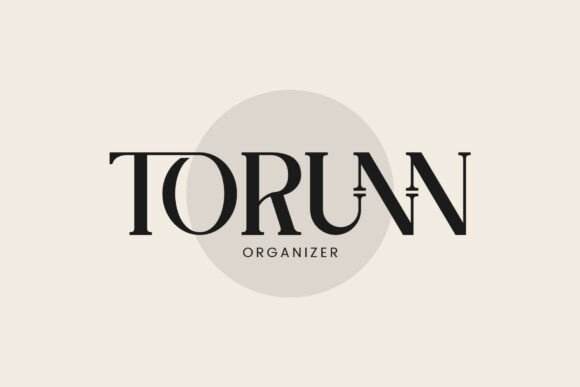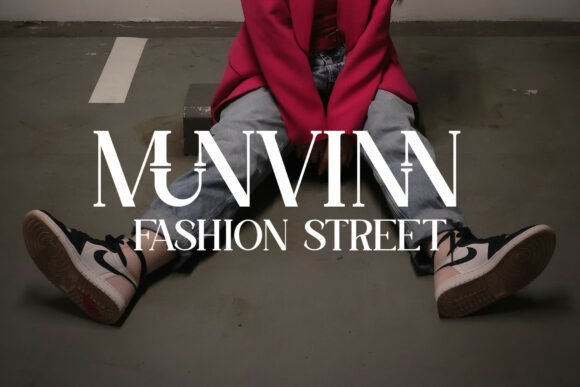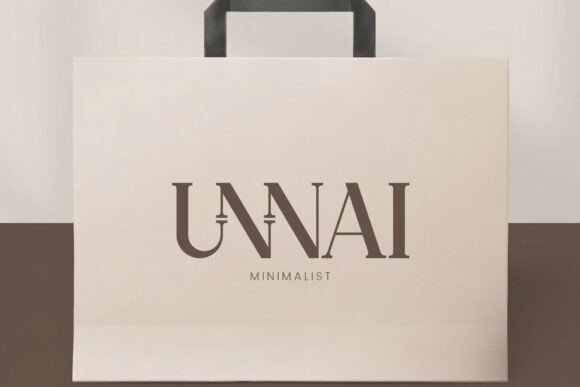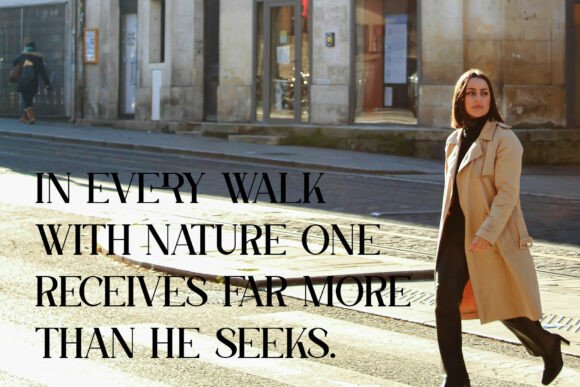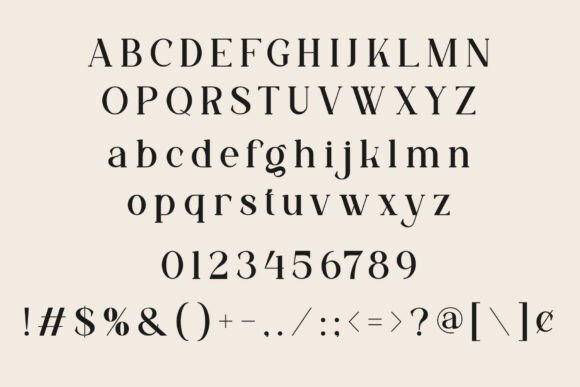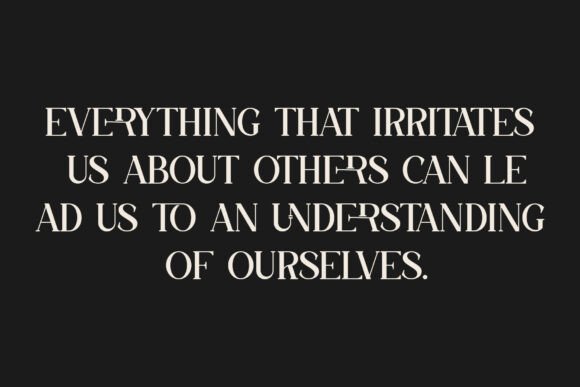
Erito Font: Elevate Your Designs with Timeless Elegance
In the world of typography, a well-crafted font can make all the difference in creating a lasting impression. Introducing Erito, a modern serif font that embodies the perfect blend of elegance, sophistication, and timeless beauty. Designed to elevate your designs to new heights, Erito is the ideal choice for crafters and designers seeking to add a touch of luxury to their creative projects.
The Essence of Erito
Erito is more than just a font – it’s an experience. With its stylish ligatures and refined letterforms, this typeface delivers a luxurious visual experience that instantly elevates any design. The perfect balance between classic serif aesthetics and contemporary minimalism, Erito creates a clean yet expressive look that feels premium, fashionable, and highly professional.
Unique Ligature Combinations
One of the standout features of Erito is its unique ligature combinations. These distinctive pairings add a personality to every word, making your typography appear more exclusive, artistic, and memorable. Whether you’re creating branding materials, logos, editorial layouts, or social media content, Erito’s ligatures will help your designs stand out with effortless elegance.
Design Philosophy
Erito’s design philosophy revolves around the idea of creating a harmonious balance between classic and modern elements. The font’s serif structure pays homage to traditional typography, while its clean lines and minimalist approach ensure it remains fresh and contemporary. This balance makes Erito an incredibly versatile font, suitable for a wide range of design applications.
Applications of Erito
Erito’s versatility makes it an excellent choice for various design projects, including:
- Branding Materials: Create a lasting impression with Erito’s luxurious and sophisticated aesthetic.
- Logos: Make your logo stand out with Erito’s unique ligature combinations and refined letterforms.
- Editorial Layouts: Add a touch of elegance to your publications with Erito’s classic serif structure and modern twist.
- Social Media Content: Elevate your social media presence with Erito’s clean and expressive design.
Why Choose Erito?
With so many fonts available, why choose Erito? Here are just a few reasons:
- Timeless Beauty: Erito’s classic serif structure ensures it will remain timeless and elegant for years to come.
- Effortless Elegance: Erito’s design makes it easy to add a touch of sophistication to any project.
- Versatility: Erito’s versatility makes it suitable for a wide range of design applications.
- Memorability: Erito’s unique ligature combinations make your typography more memorable and exclusive.
In conclusion, Erito is a modern serif font that offers a unique blend of elegance, sophistication, and timeless beauty. With its stylish ligatures, refined letterforms, and perfect balance of classic and modern elements, Erito is the ideal choice for designers and crafters seeking to elevate their designs. Whether you’re creating branding materials, logos, editorial layouts, or social media content, Erito is sure to help your designs stand out with effortless elegance.